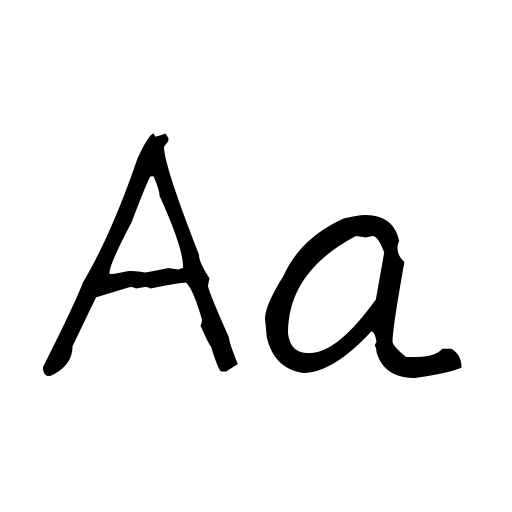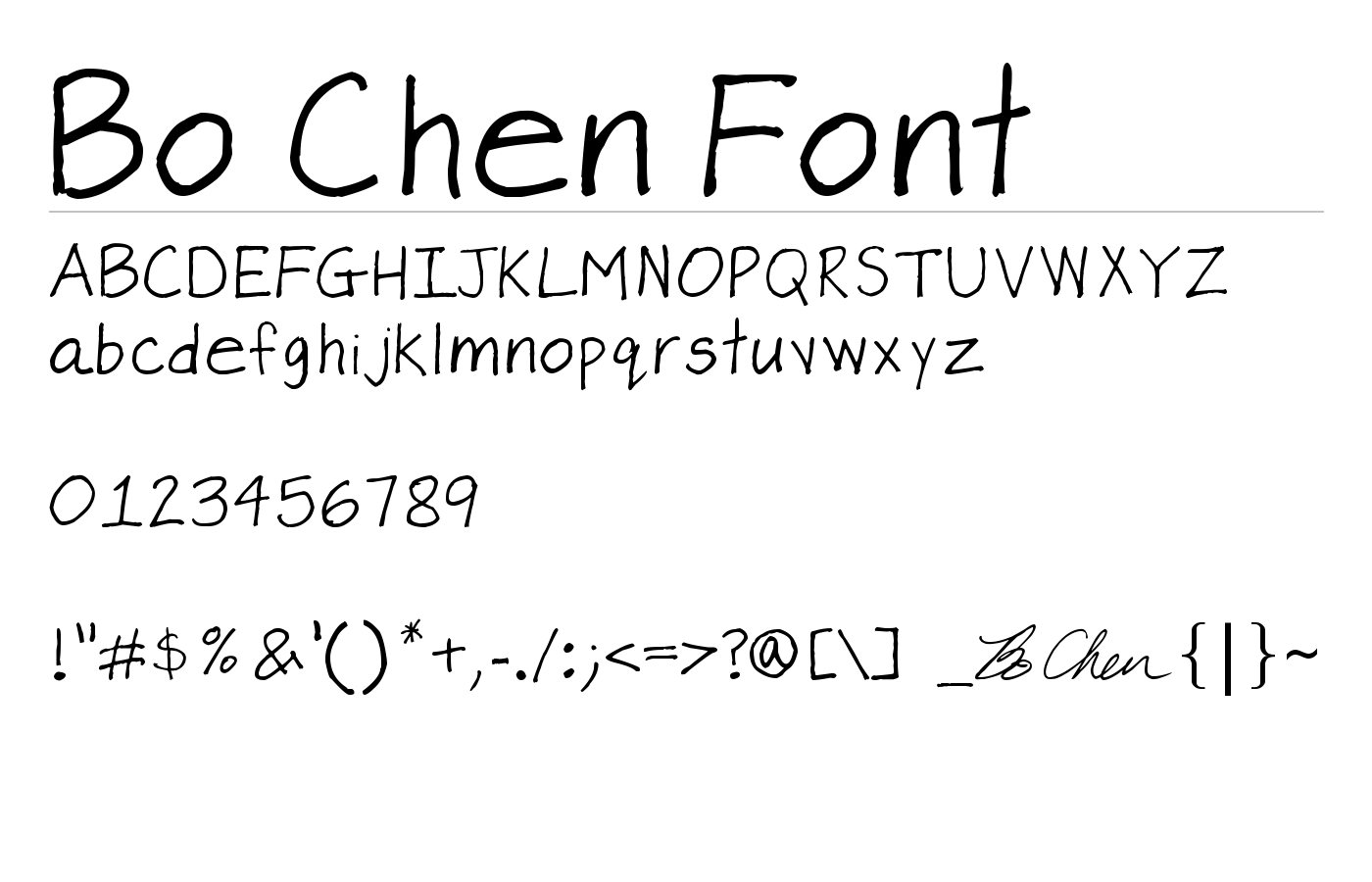
Bo Chen Font is a casual, handwritten sans serif typeface with a playful and organic feel. Its uneven, slightly rough strokes and moderate x-height give it a friendly, approachable personality, making it ideal for informal designs, personal branding, and creative projects that want a warm, human touch. This font works well for headlines, greeting cards, or any context where a relaxed and genuine vibe is desired.
Bo Chen Font
About Bo Chen Font